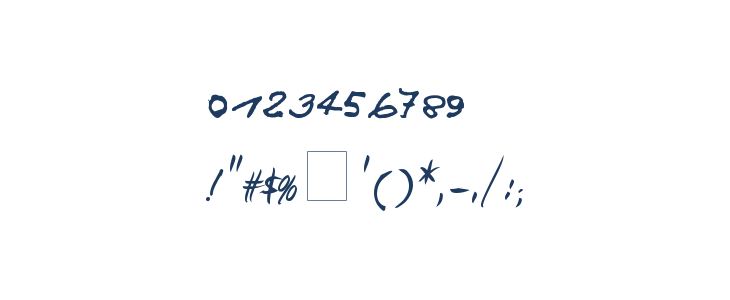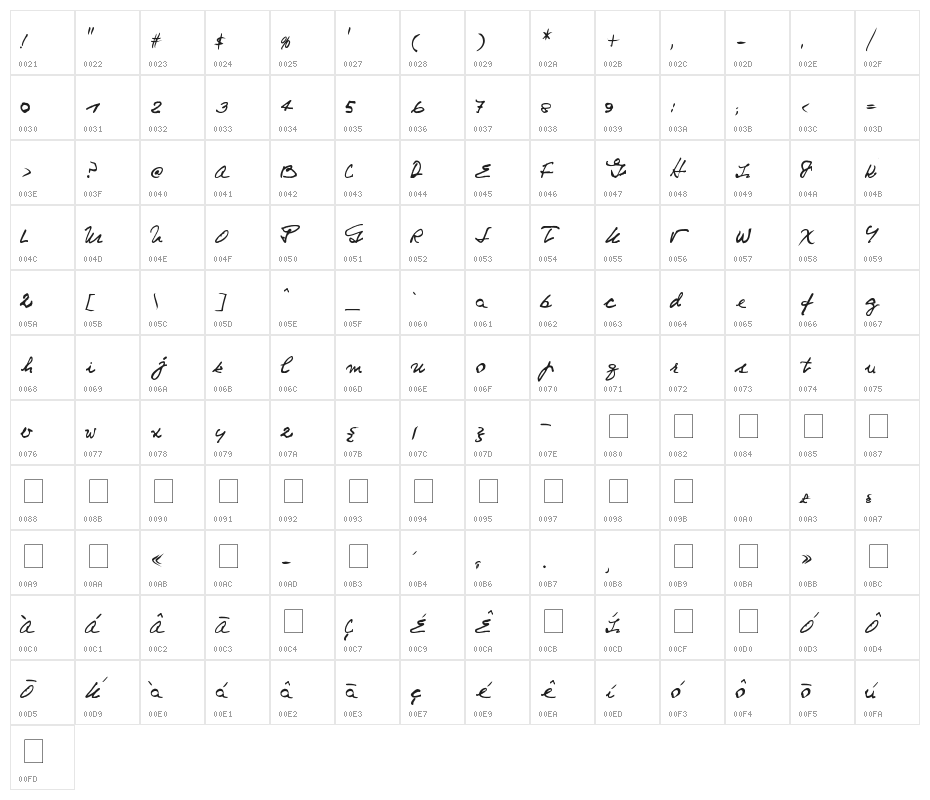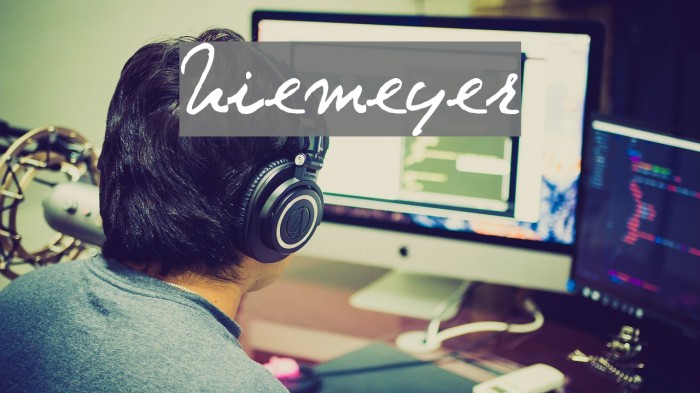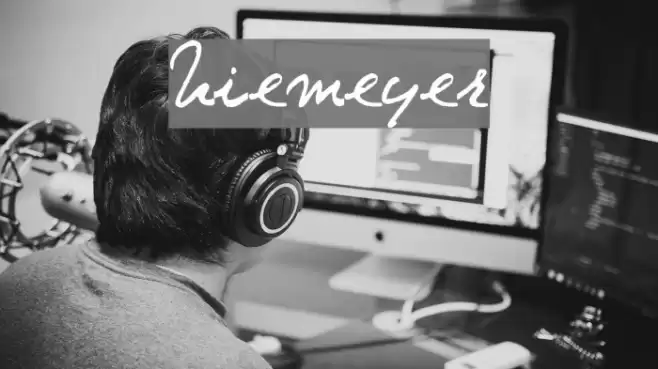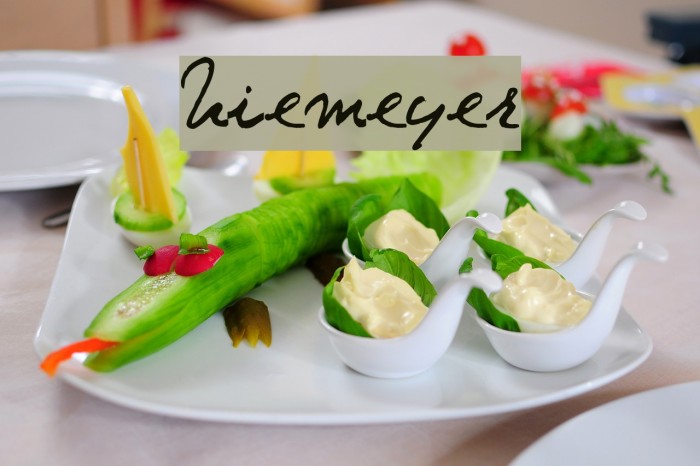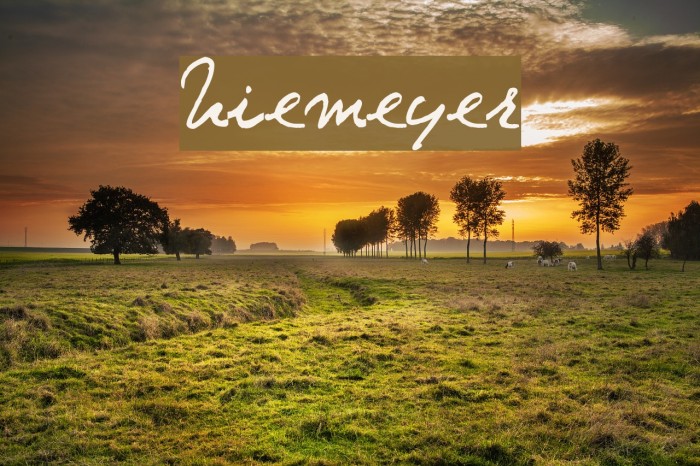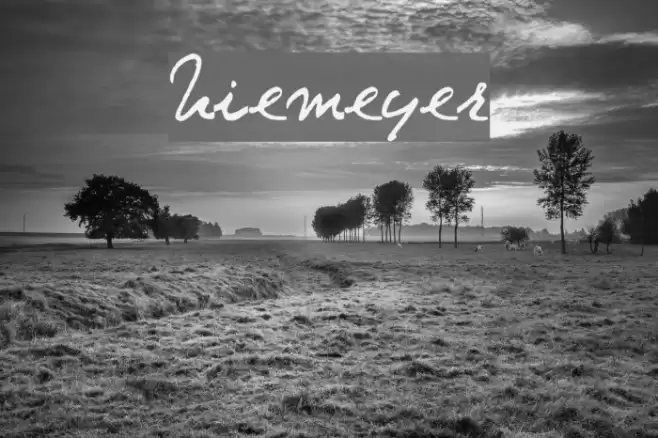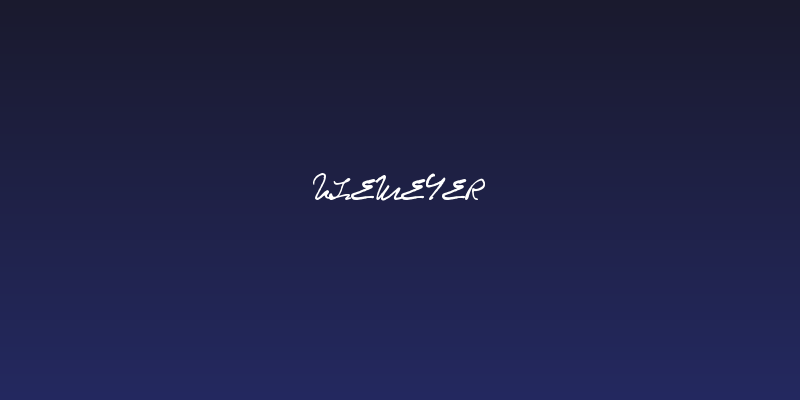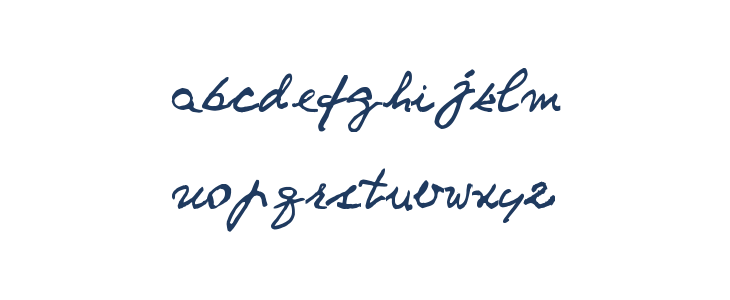
Niemeyer Font
Niemeyer Description
This font exhibits a dynamic and fluid handwritten style, characterized by its cursive script and organic flow. The letters are connected, creating a sense of continuity and motion. The strokes vary in thickness, adding a natural and personal touch to the text. The uppercase letters are bold and prominent, while the lowercase letters maintain a consistent flow. The numerals and special characters are designed to match the overall aesthetic, ensuring a cohesive appearance. This font is perfect for projects that require a personal, artistic, or informal touch.
| Overall Style | Artistic |